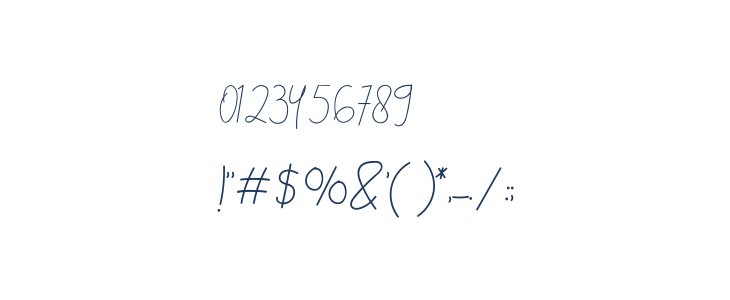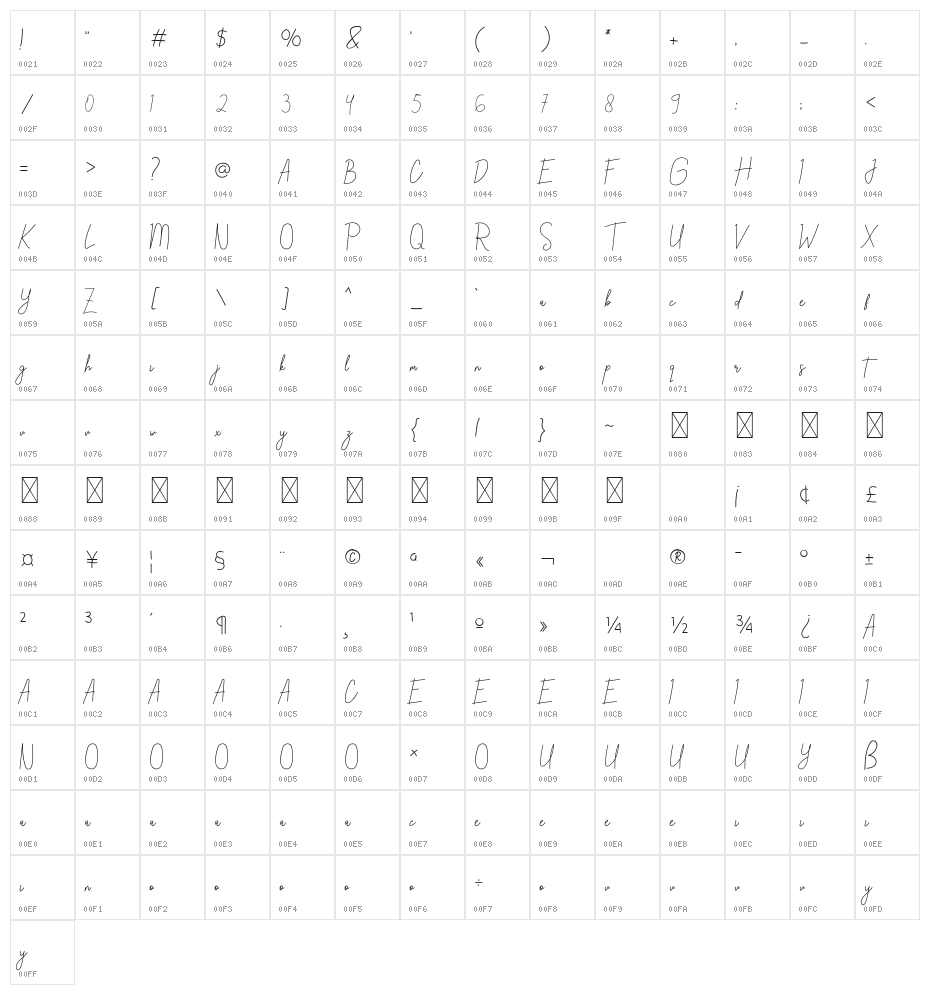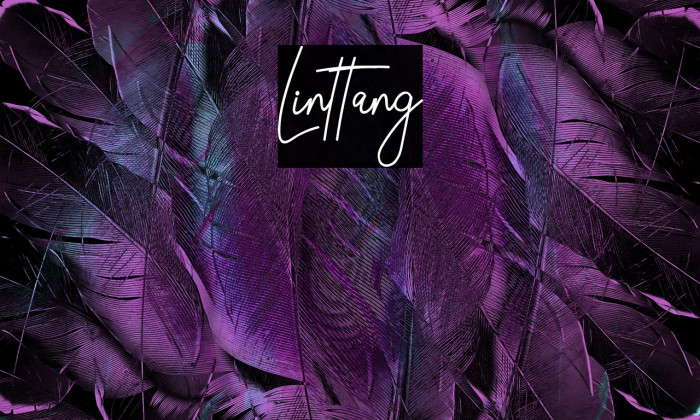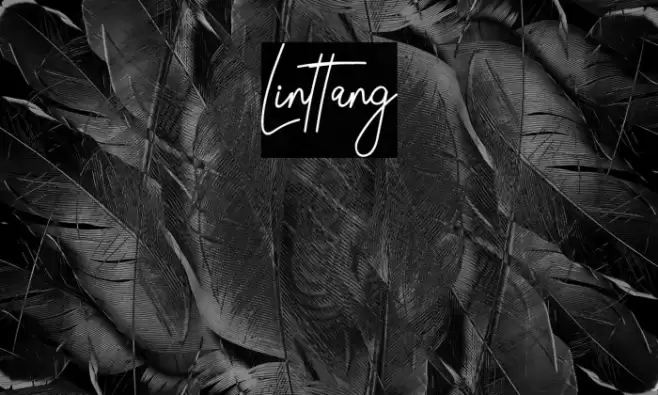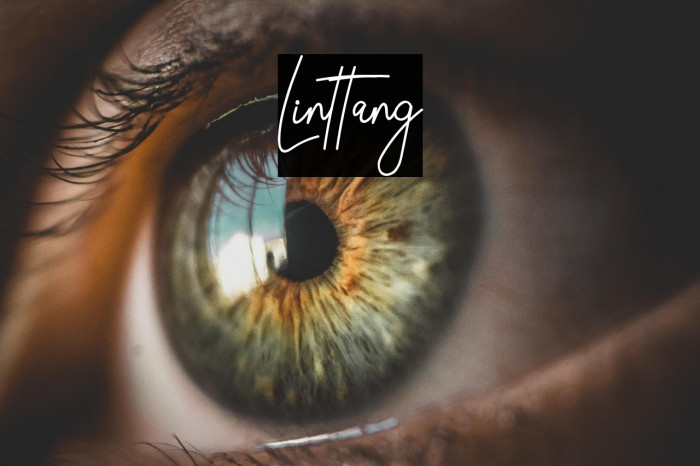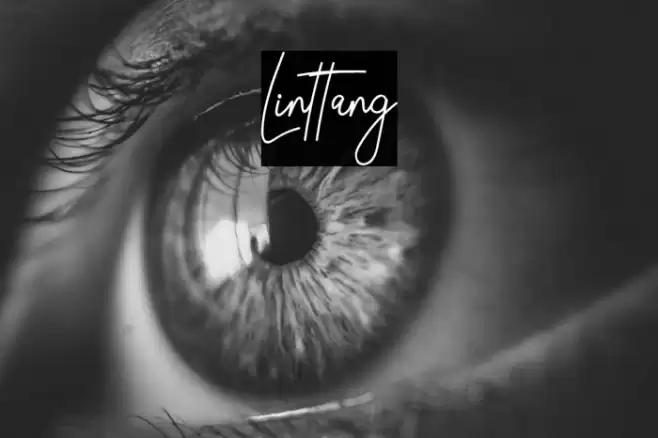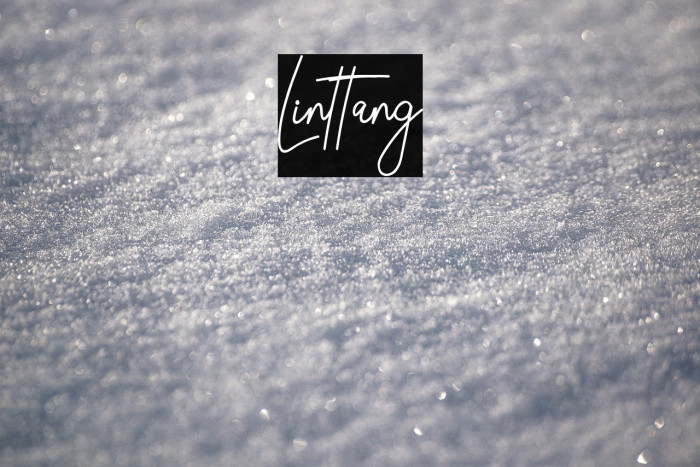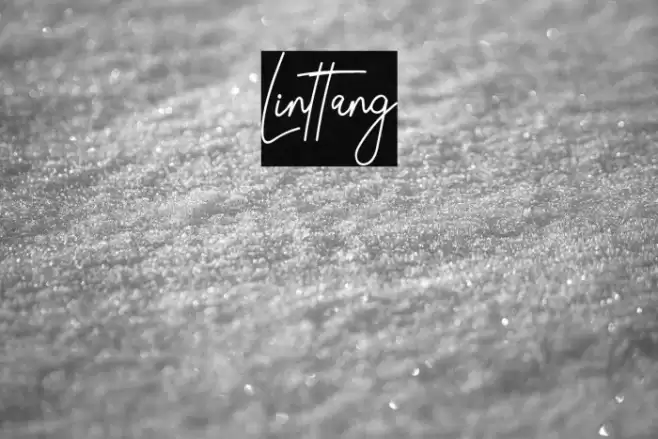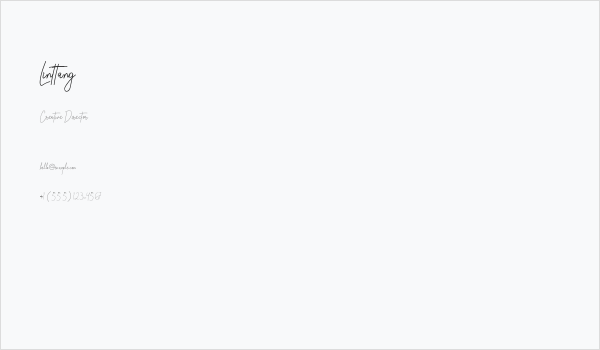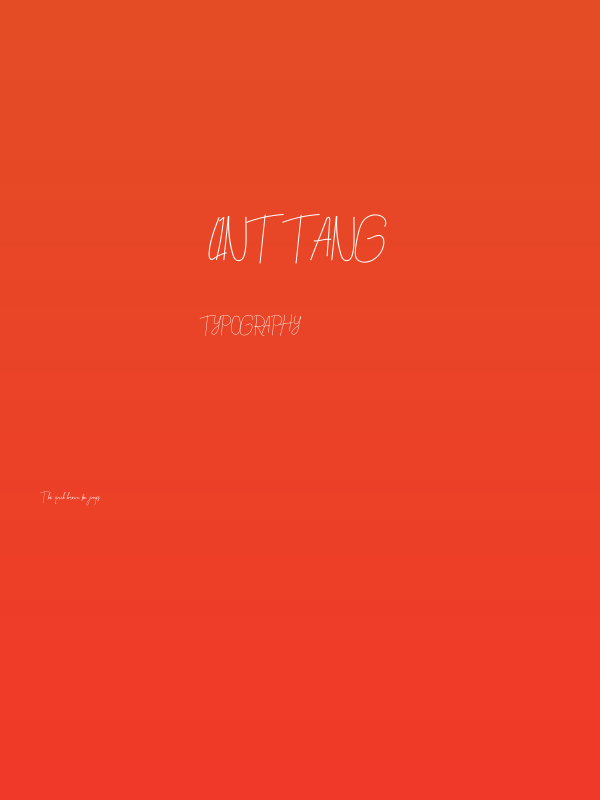
Linttang Font
Linttang Description
This font features a unique and artistic style with elongated, flowing lines that give it a whimsical and playful appearance. The uppercase letters are tall and narrow, with a slight slant that adds a dynamic feel. The lowercase letters maintain the same playful quality, with some characters featuring loops and swirls that enhance the font's decorative nature. The numbers and special characters are consistent with this style, offering a cohesive look across all elements. This font's thin strokes and elegant curves make it suitable for creative and expressive design projects.
| Use Case | Headlines, Logos, Artistic projects |
| Proposed Projects | Ideal for creative projects such as invitations, greeting cards, artistic posters, and branding for playful or whimsical brands. |